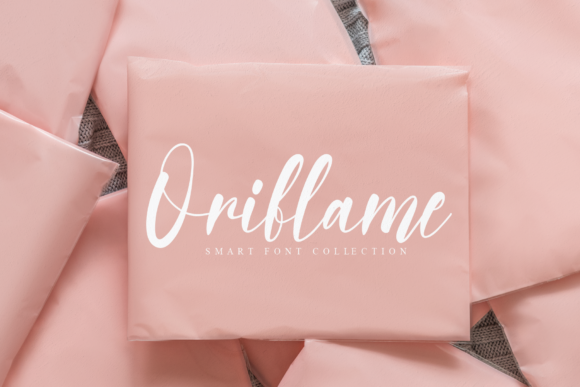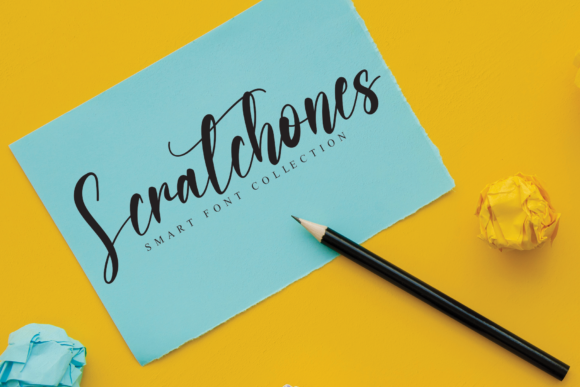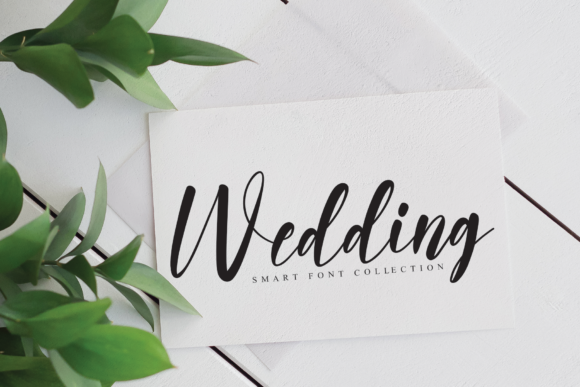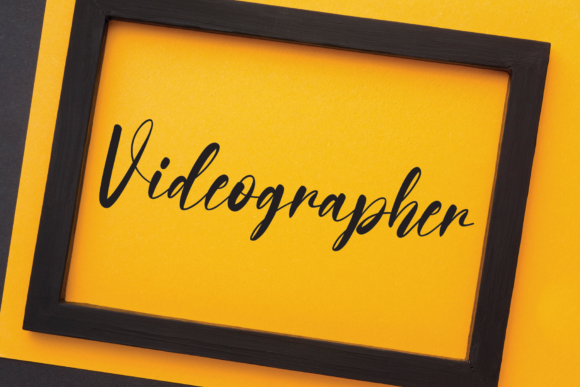
Unlock the Power of Handwritten Charm with Blissfullove Font
There’s something magical about the moment when a design concept comes together, and the words start flowing onto the page. The blank canvas transforms into a vibrant world of creativity, where every letter, every curve, and every flourish tells a story. And that’s where the Blissfullove Font comes in – a friendly handwritten font that’s designed to add a touch of warmth and personality to your designs.
With its flexibility and neat style, the Blissfullove Font is a valuable addition to any designer’s toolkit. Whether you’re crafting a love letter, a wedding invitation, or a social media post, this font will brighten up each of your designs and make them truly special. So, have fun with this cool font and explore its endless variations – we’re sure you’ll fall in love with it!
Key Features of Blissfullove Font
• Unique Characteristics: Hand-drawn and cursive script font with elegant and romantic feel, ideal for wedding invitations, love letters, and other sentimental designs.
Blissfullove Font Review
Overall, I was excited to dive into the Blissfullove Font and see what it had to offer. Here’s my honest review:
• The Blissfullove Font has a beautiful, elegant feel to it. The curves and lines flow nicely together, making it perfect for romantic or whimsical projects.
• The font is highly customizable, allowing users to adjust the size, color, and even add effects to the text.
• The font is also very versatile, making it suitable for a wide range of projects, from wedding invitations to children’s book illustrations.
• The font may be a bit too ornate for some projects, making it difficult to read at smaller sizes.
• The font doesn’t include a bold or italic version, which may limit its usability in certain situations.
• The font may not be the best choice for projects that require a lot of text, as the ornate design can make it difficult to read.
Overall, the Blissfullove Font is a beautiful and versatile font that is perfect for romantic or whimsical projects. While it may have some limitations, it’s a great choice for anyone looking to add a touch of elegance to their design.
Tips for Getting the Most Out of Blissfullove Font
For best results, use the Blissfullove font in conjunction with soft, pastel colors and gentle textures.
Experiment with different font sizes and styles to create visual interest and emphasis.
The Blissfullove font is ideal for:
Baby shower invitations and decorations
Valentine’s Day cards and gifts
Any project that requires a soft, feminine touch
Alternatives to Blissfullove Font
Great Vibes Font is a beautiful, elegant script font perfect for creating a romantic and whimsical atmosphere. It’s ideal for use in wedding invitations, greeting cards, and other design projects that require a touch of sophistication.
Compared to Blissfullove Font, Great Vibes Font has a more refined and polished look, making it suitable for a wider range of design applications.
Carolyna Pro Font is a modern, handwritten font with a unique and playful feel. It’s perfect for use in design projects that require a touch of personality and whimsy, such as food labels, signage, and social media graphics.
Compared to Blissfullove Font, Carolyna Pro Font has a more casual and relaxed look, making it ideal for design projects that require a more laid-back tone.